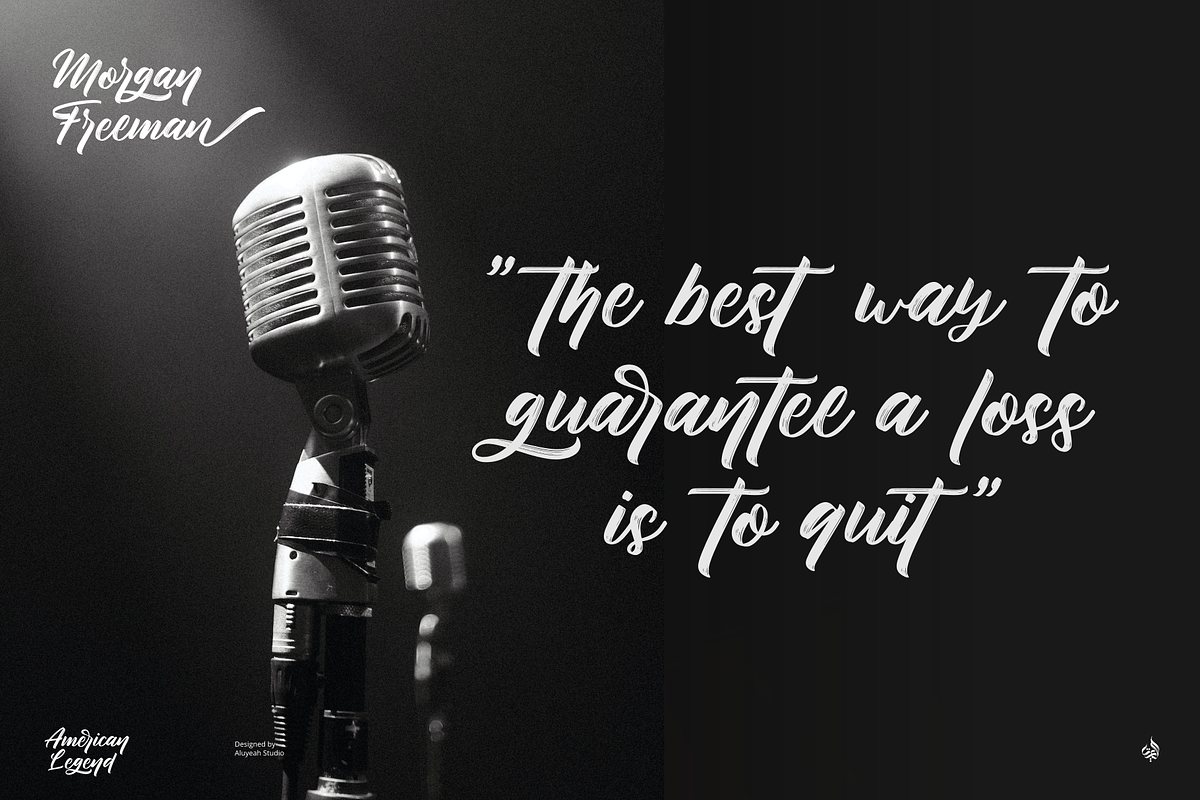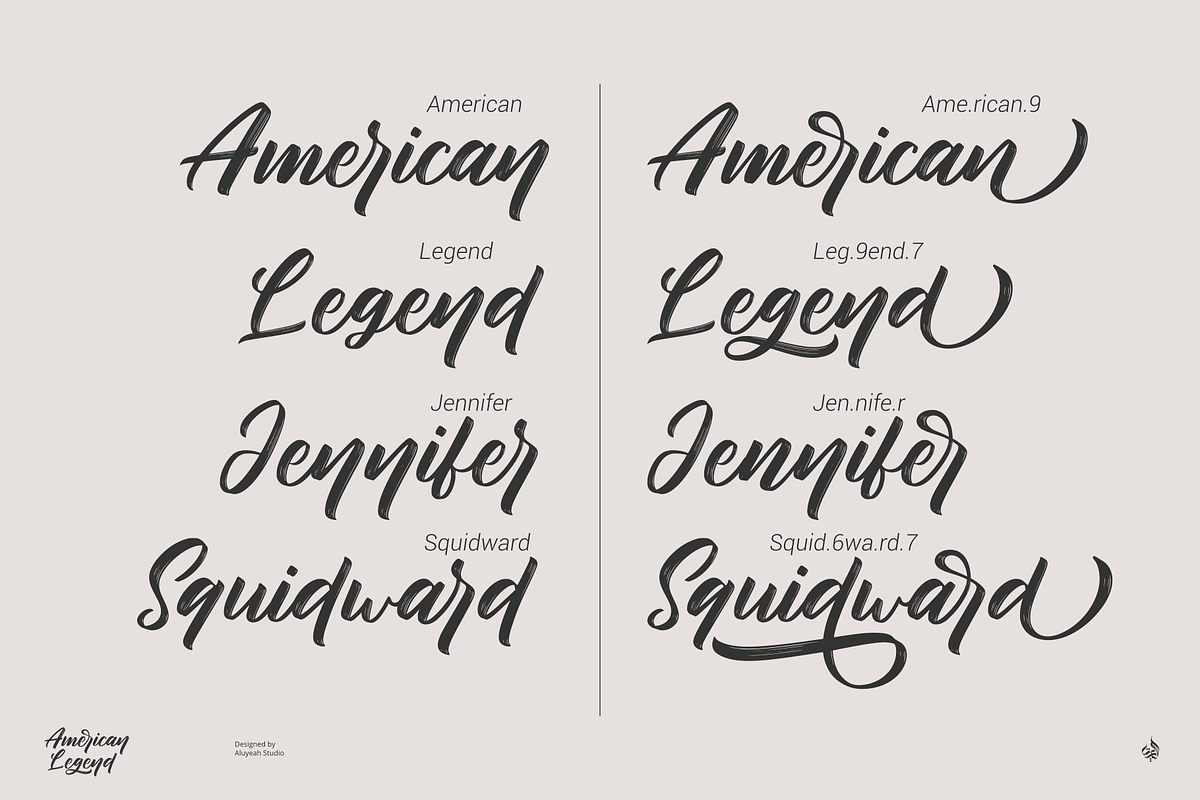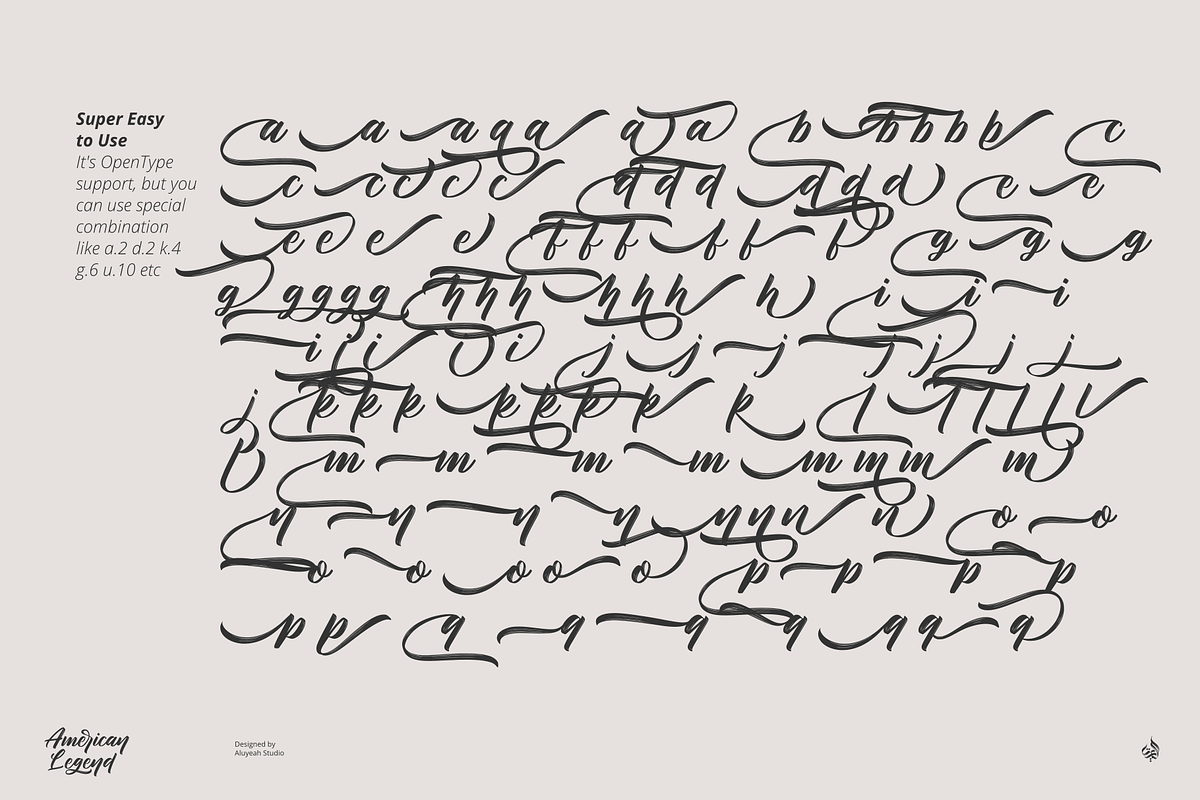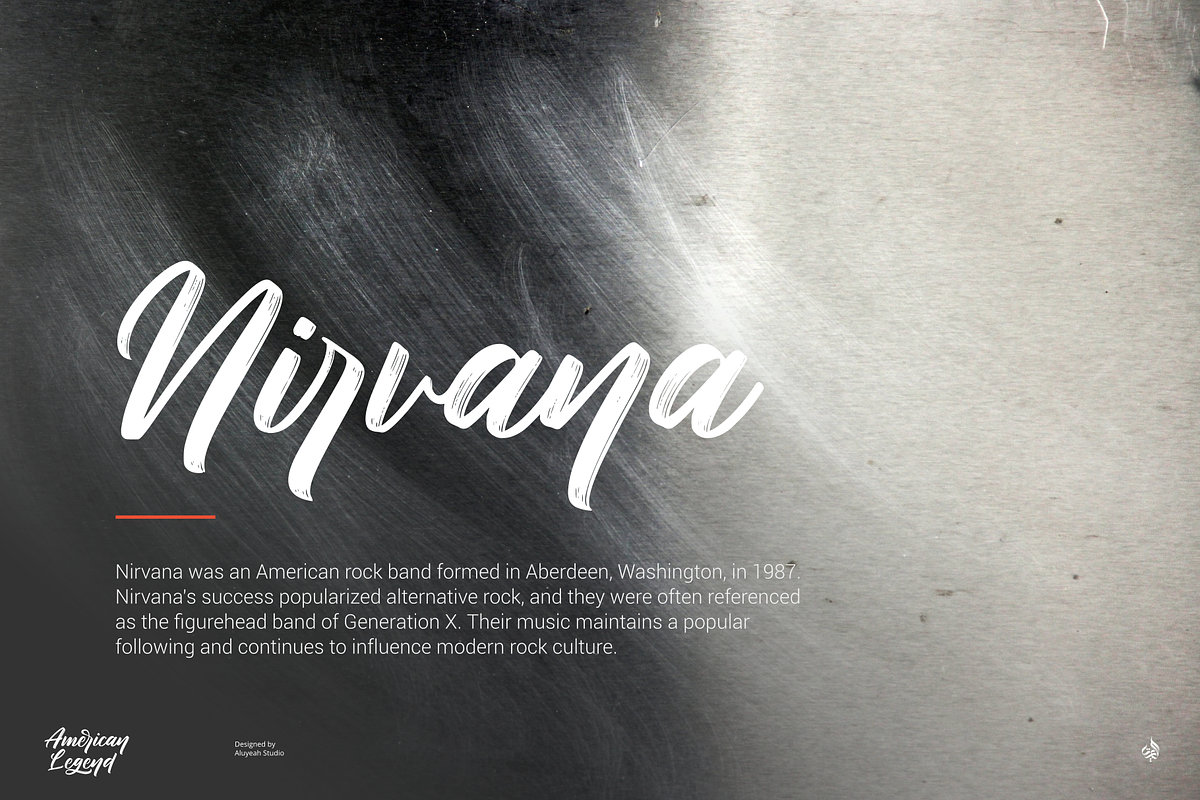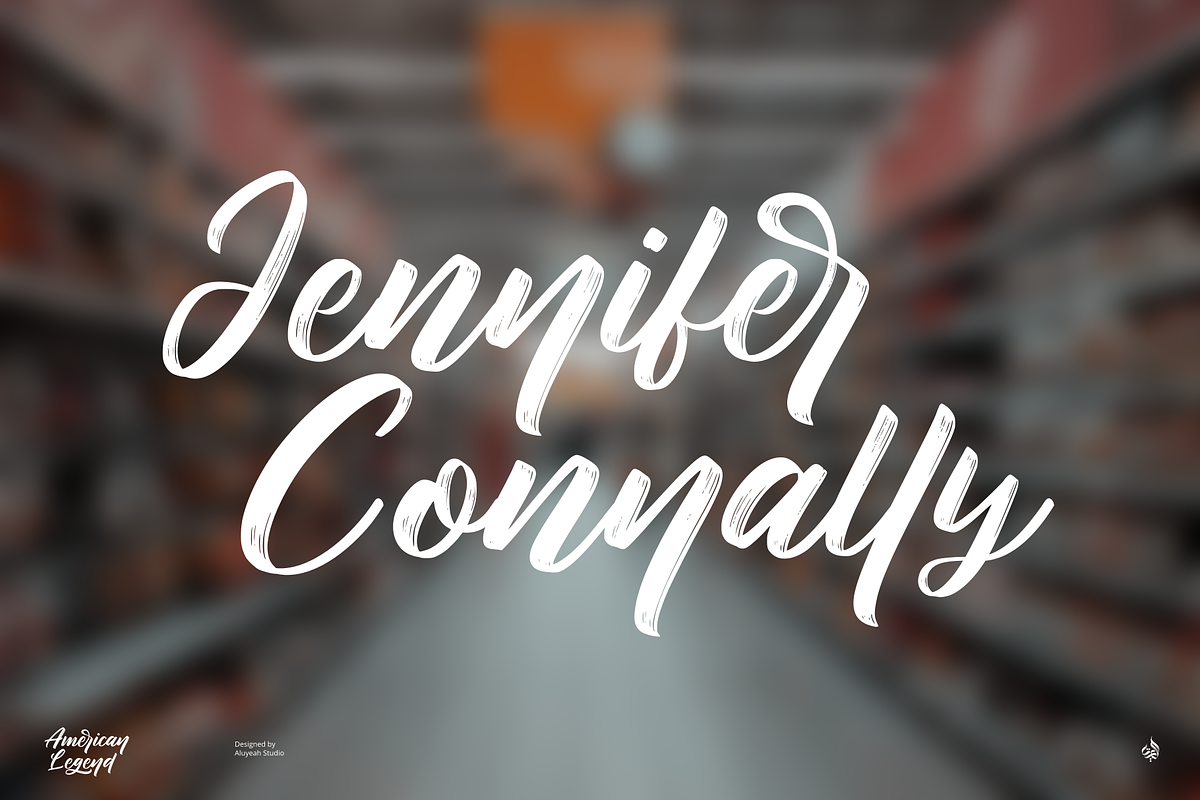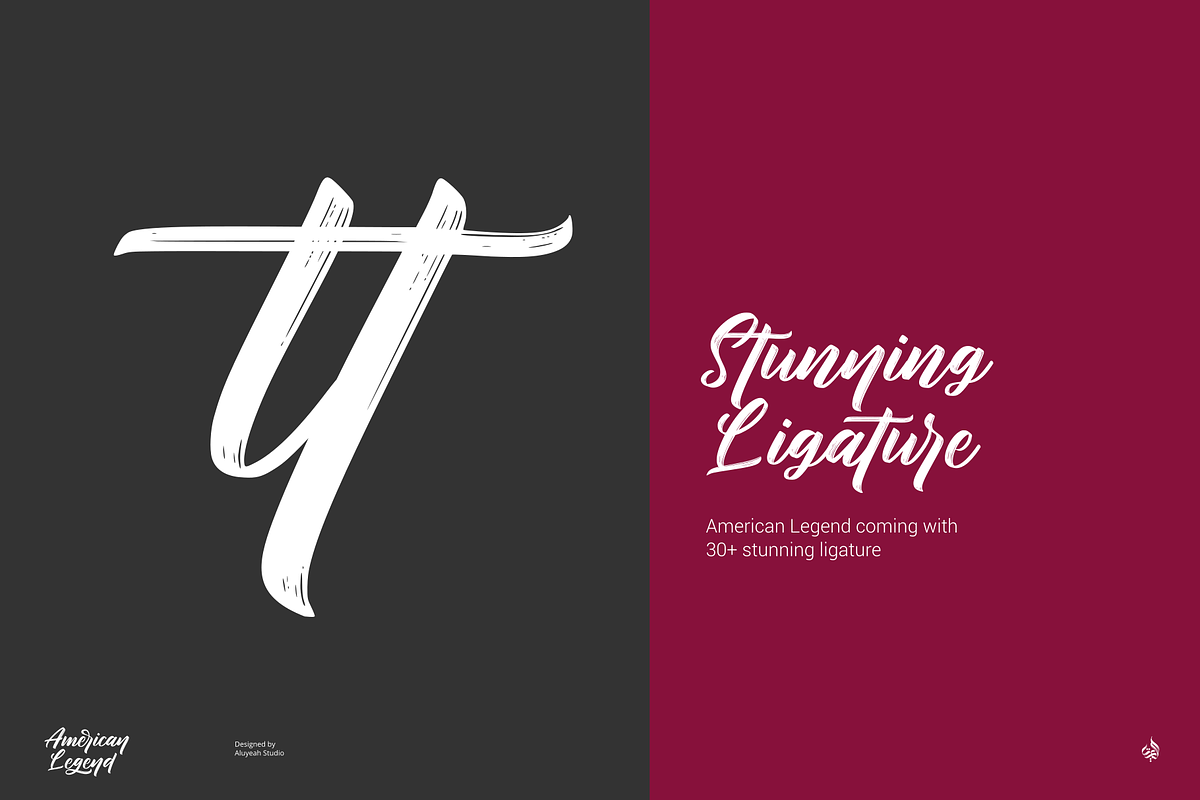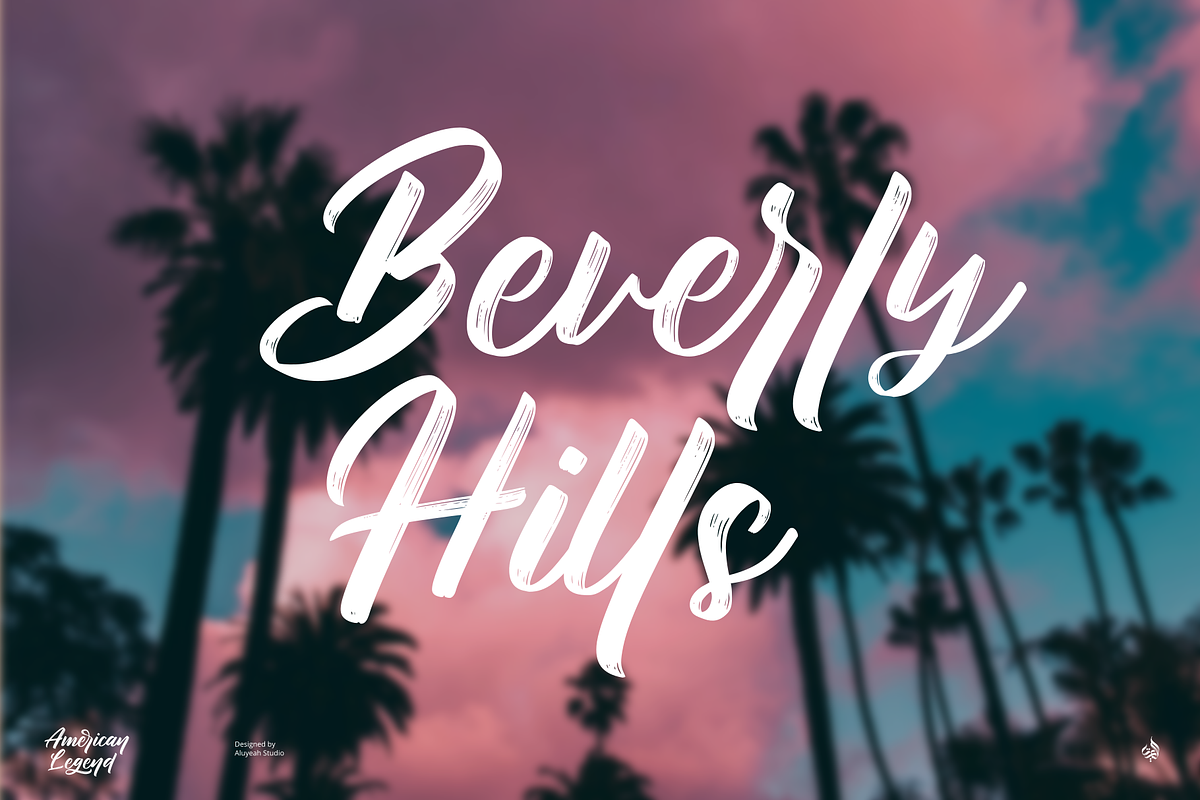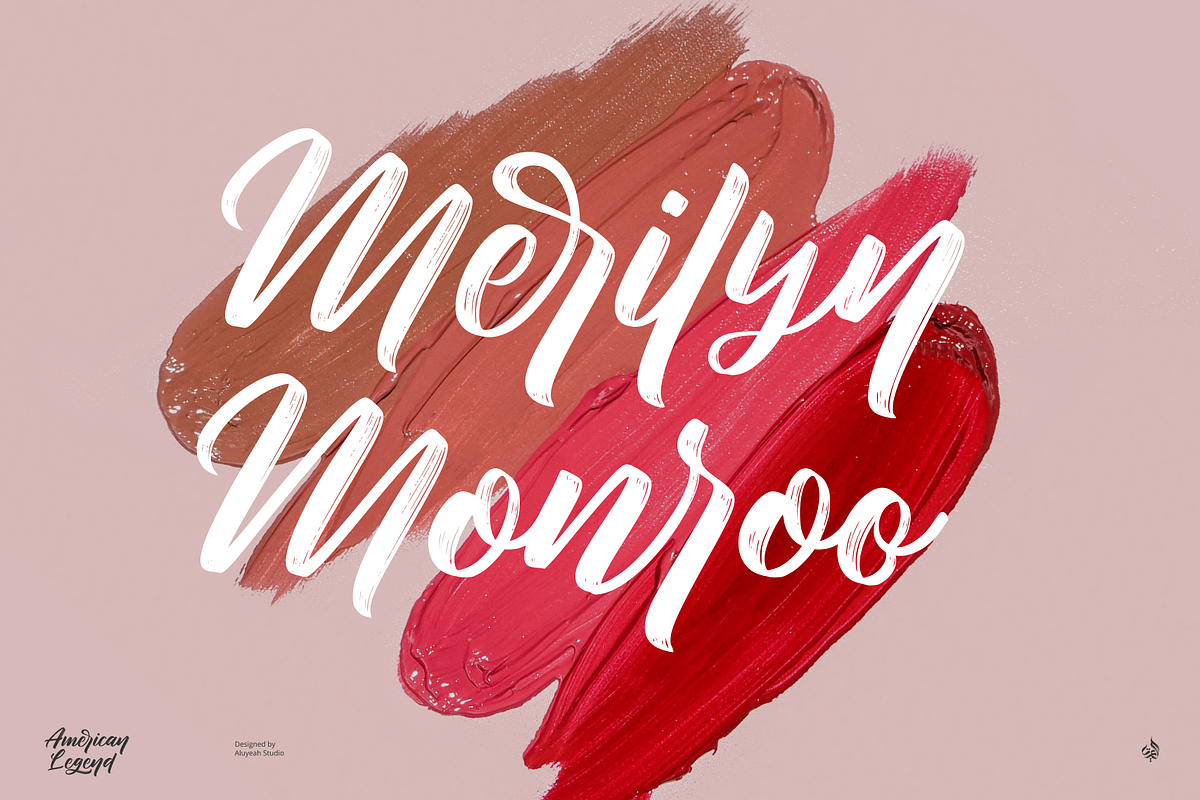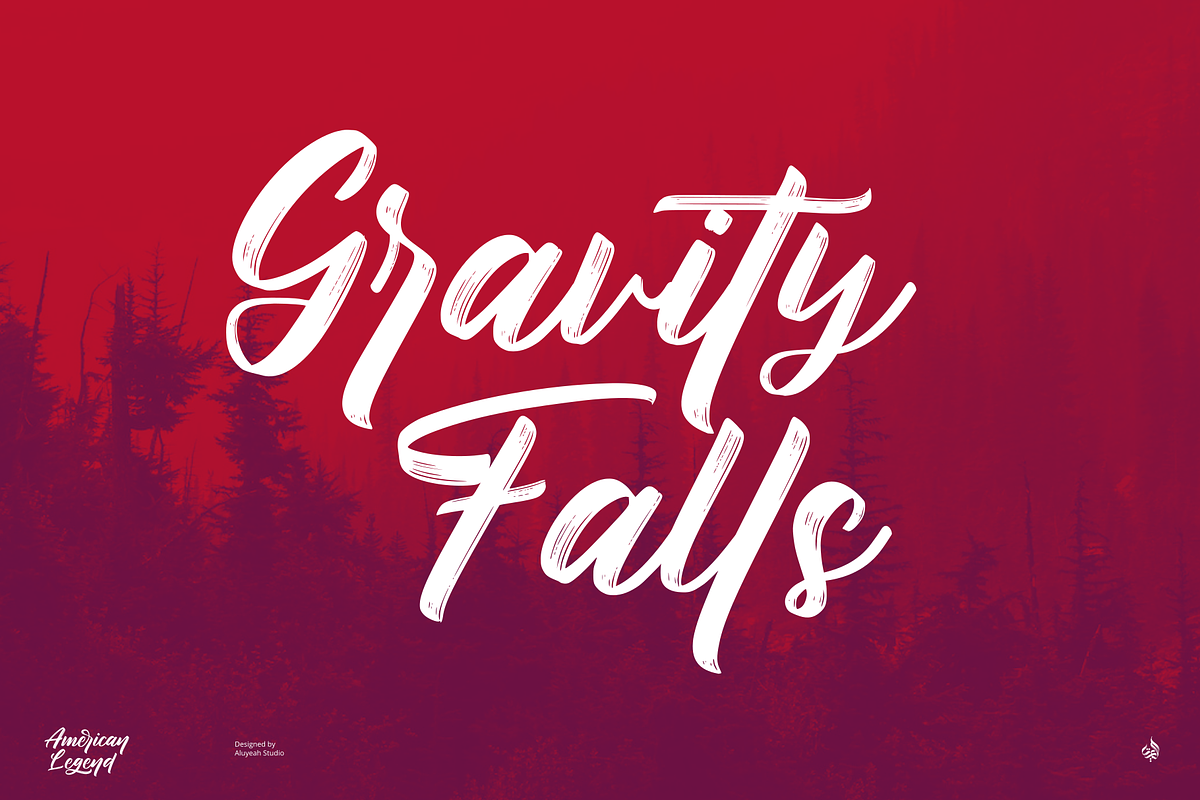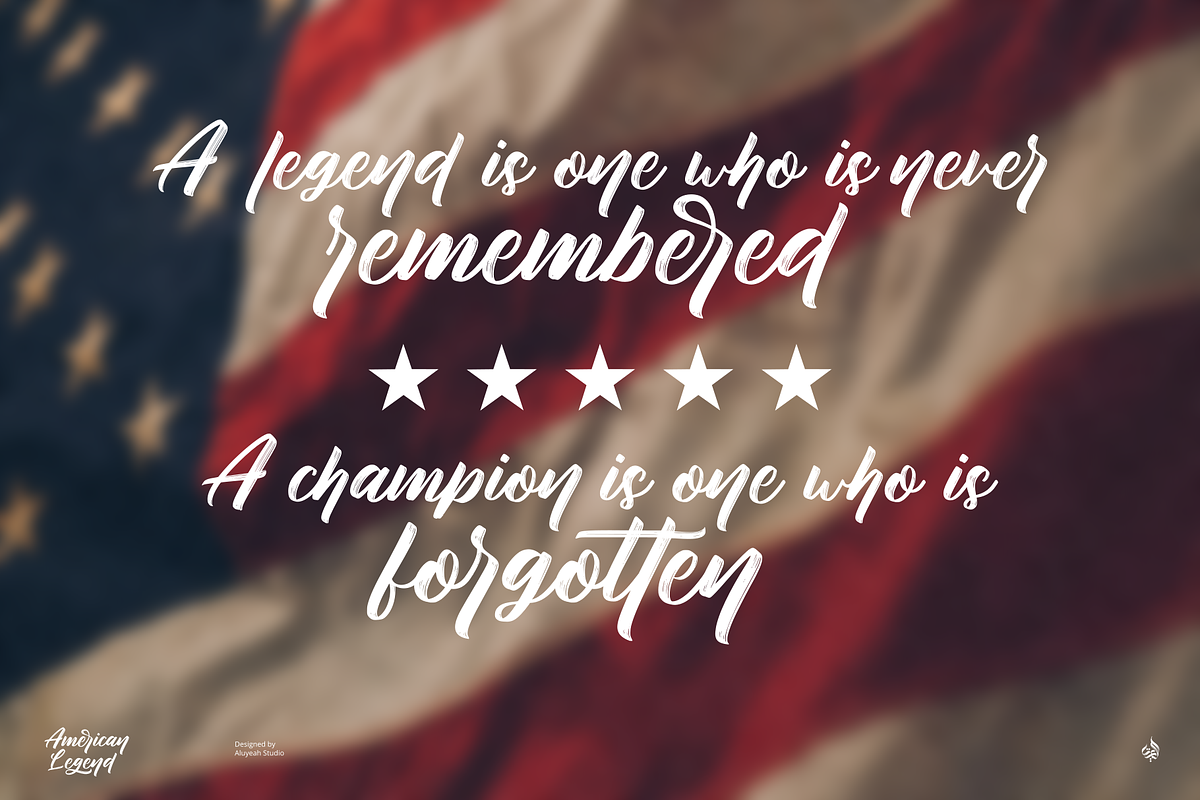
American Legend
So we tried playing with the script, we hope you like it. American Legend is inspired by vintage handwriting. Comes with 220+ stunning alternates and ligatures.
It can be applied to many areas of design. Super easy to use alternates and ligatures.Very suitable for packaging, apps, magazine, headline, website, ads and all type of design project you have.
- OpenType support
- Multilingual support (15 languages)
- Super Easy to Use alternates - You can easily call alternates using special combination like a.2 a.3 b.5 e.r a.r l.l etc.
To get results like the preview just type Ame.rican Leg.9end